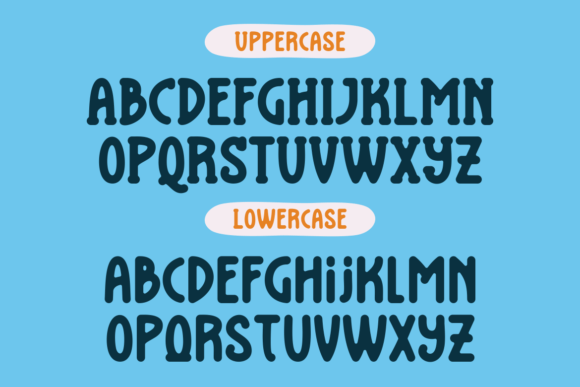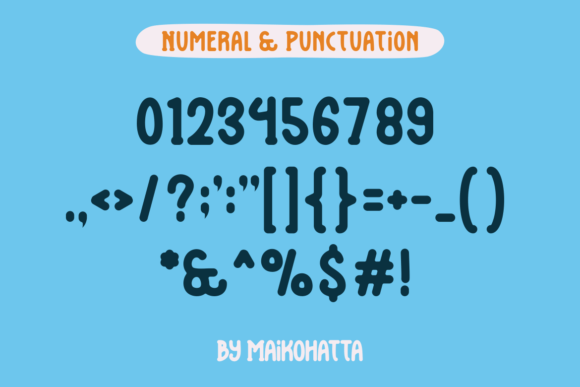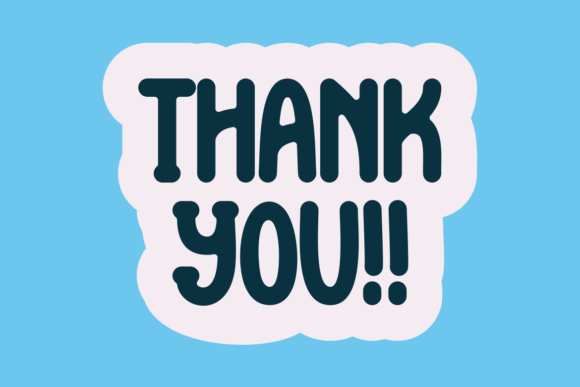
Introduction to Brisk Kids Font
Brisk Kids is a cute and friendly display font that is perfect for creating playful and cheerful designs.
Its chubby and whimsical letters feature playful curves and bold details, giving it a fun and inviting personality This font is perfect for childrenโs books, posters, and other projects that require a charming and lively font.
Key Features of Brisk Kids Font
Why Choose Brisk Kids Font?